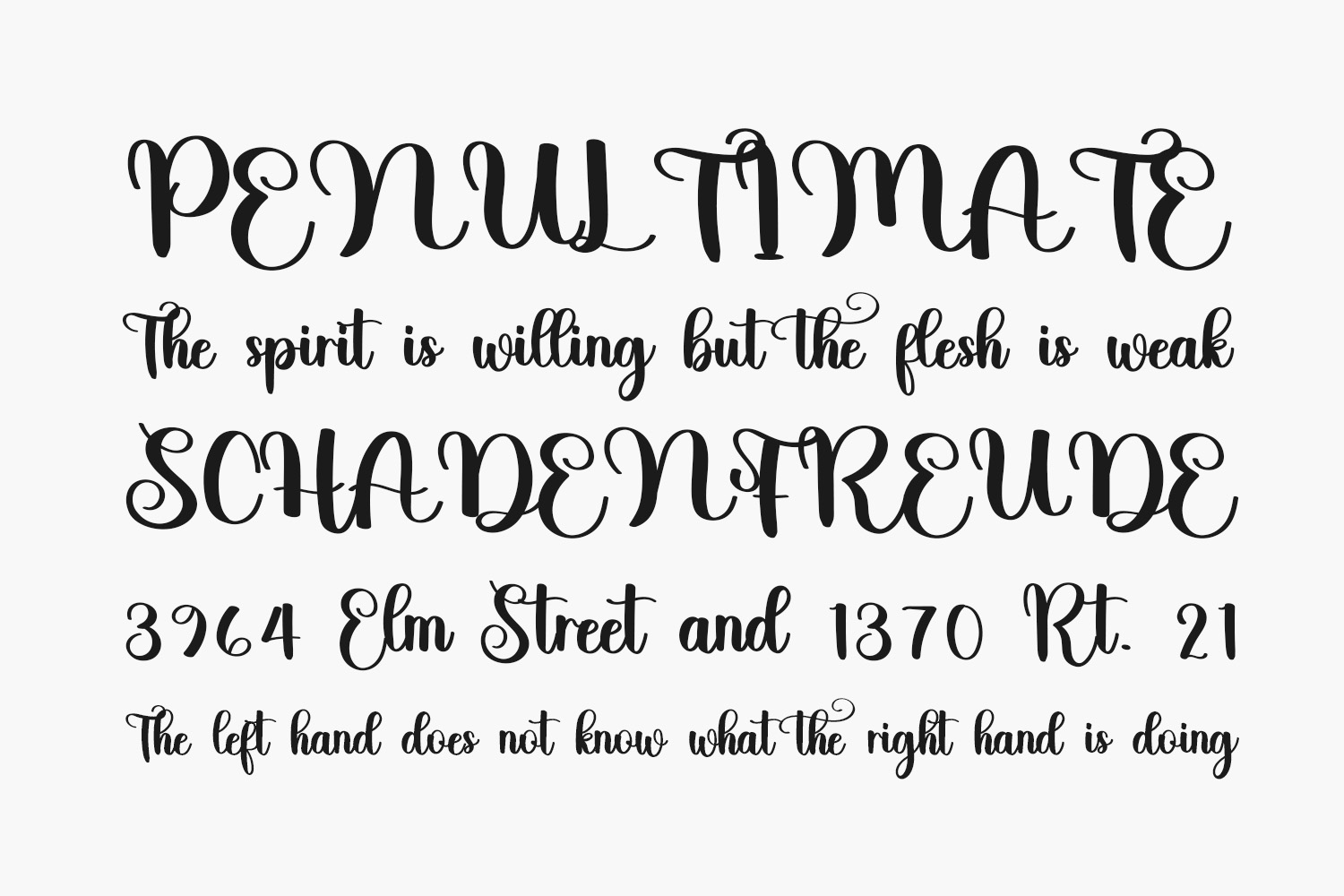
Dropping Free Font is a chic, refined script font that emanates sophistication and elegance. Its stylish alternates and ligatures make this font the perfect match for any project. Dropping Free Font was designed by Inermedia Studio and is free for personal use only. Please purchase the full version for commercial use.